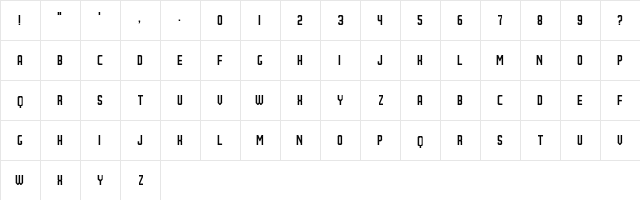
Party Lights [WLM] Two Regular
| Designer | Wolf Lambert |
Design Context for Party Lights [WLM] Two Typeface
Party Lights [WLM] Two is a composed and adaptable typeface that performs quietly and consistently across a wide range of design contexts. Its slender proportions lend an understated elegance to any composition.